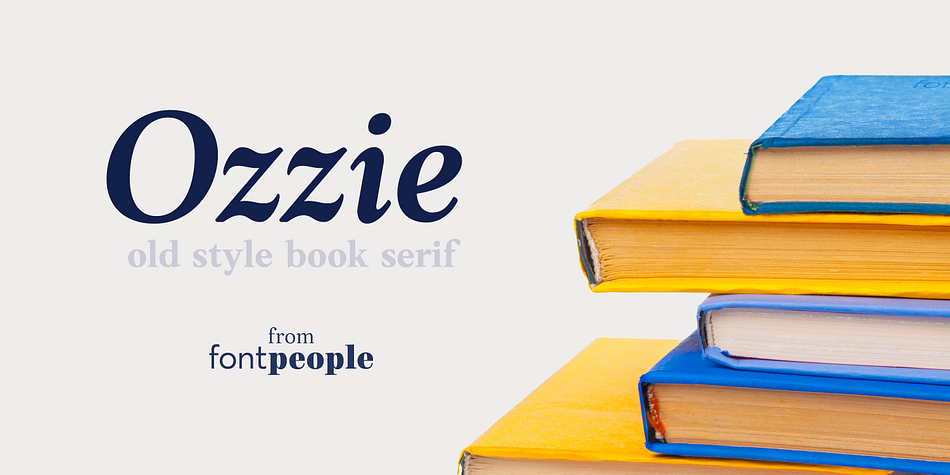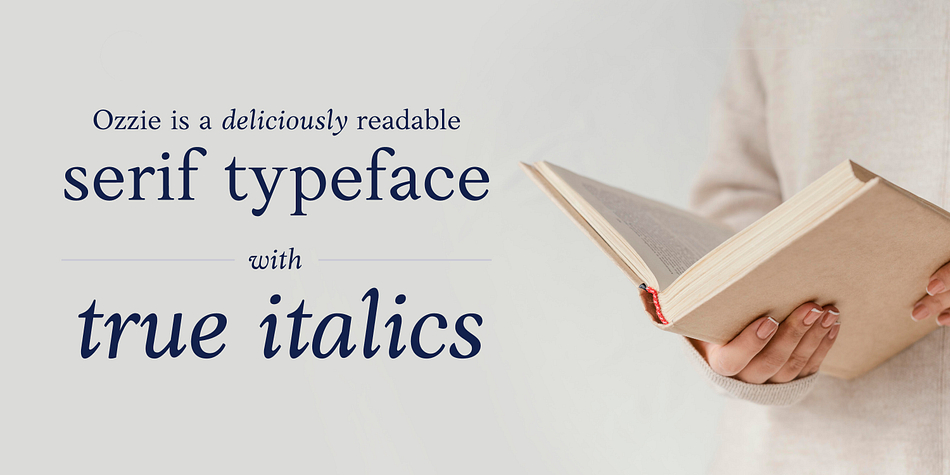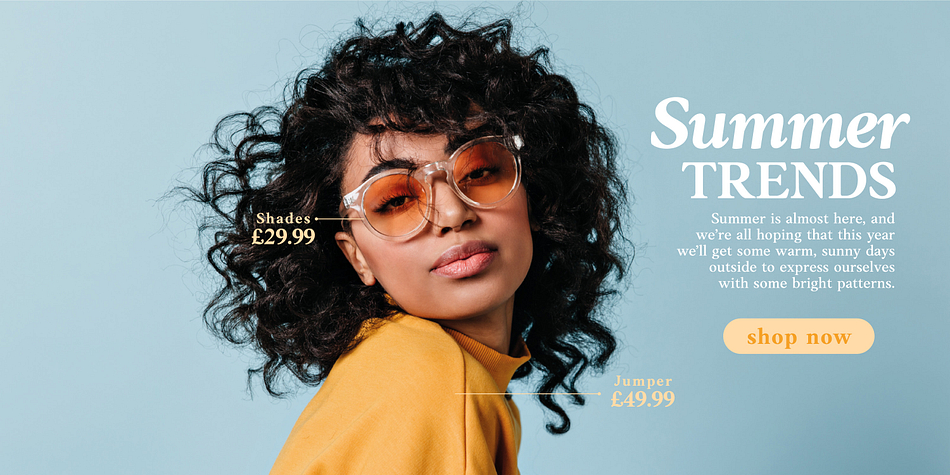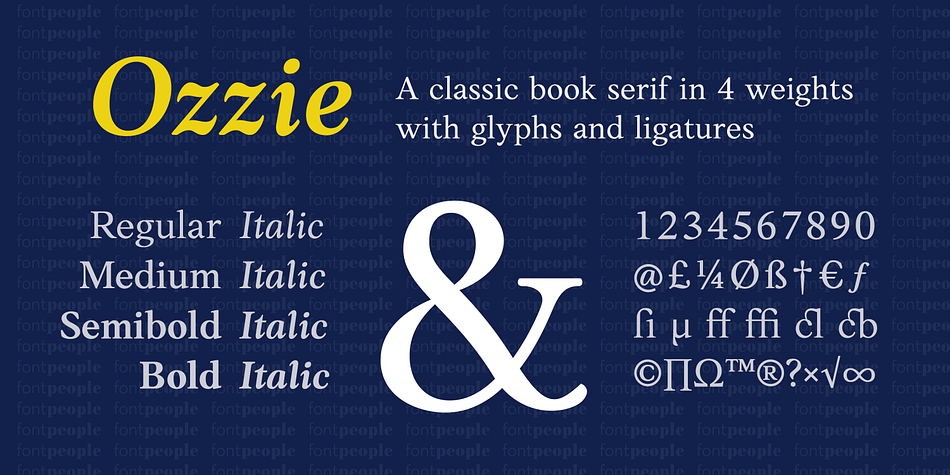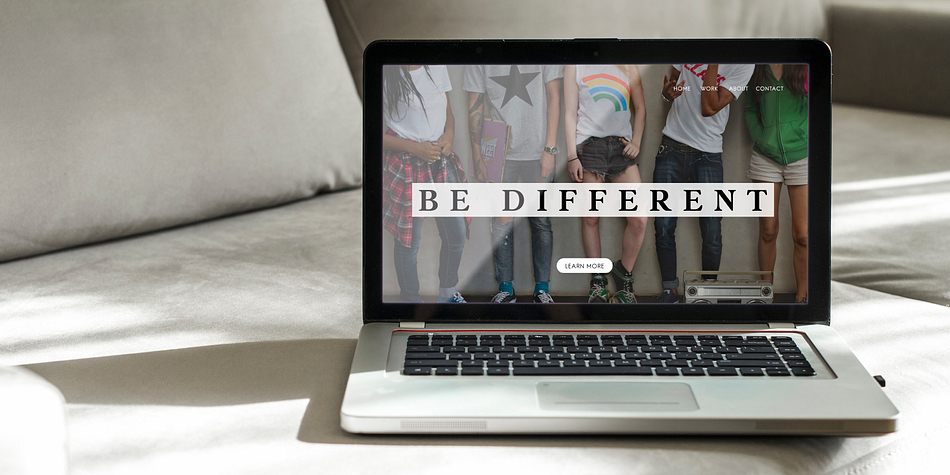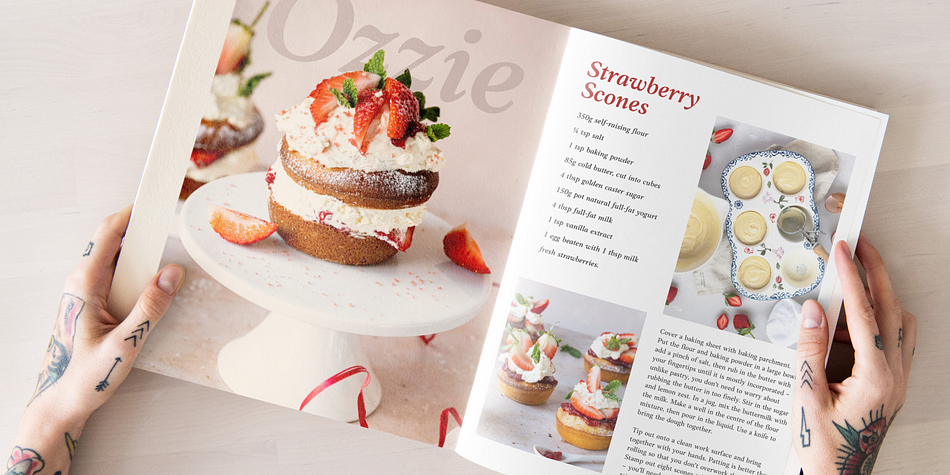
Designed by Iachawr Telyncombe, Ozzie is a serif font family. This typeface has eight styles and was published by FontPeople.
Ozzie is a very readable old style book serif. With warm contrast and fluid shapes the typeface is easy on the eye making it great for body and header use in any print or digital environment, available in 4 upright and 4 true italic styles.
Ozzie was created primarily as a traditional text font but adapts well to today’s digital technology, presenting the richness of the late baroque forms within modern text formats.